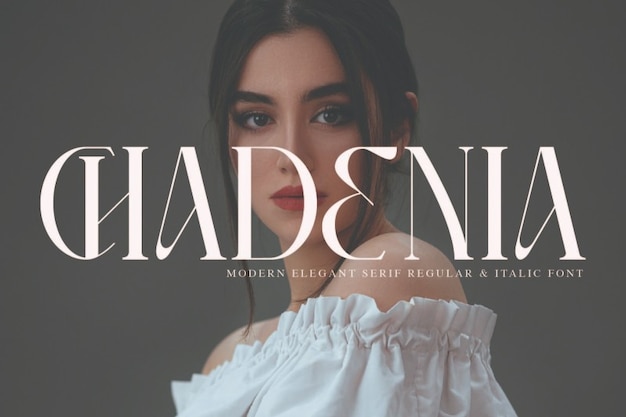
Chadenia
Chadenia Font
Chadenia is a modern, elegant font that exudes luxury and sophistication. Each character is meticulously crafted with sleek, stylish lines, making it perfect for high-end branding, upscale invitations, and chic design projects. Chadenia brings a touch of contemporary elegance and opulence, elevating your work with its refined and luxurious appeal.
Chadenia Regular (400)
Chadenia Regular (Italic) (400)